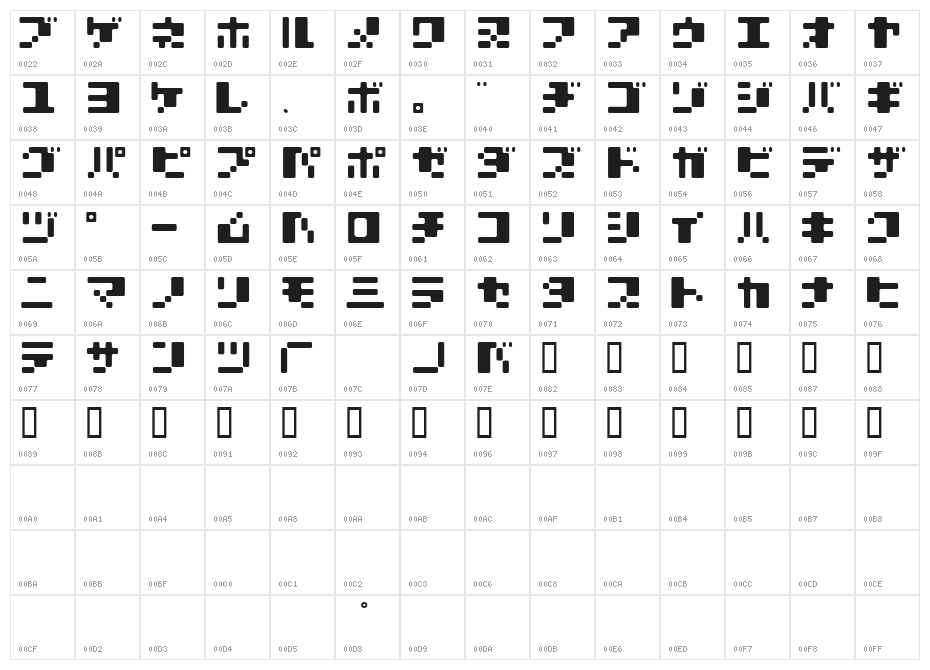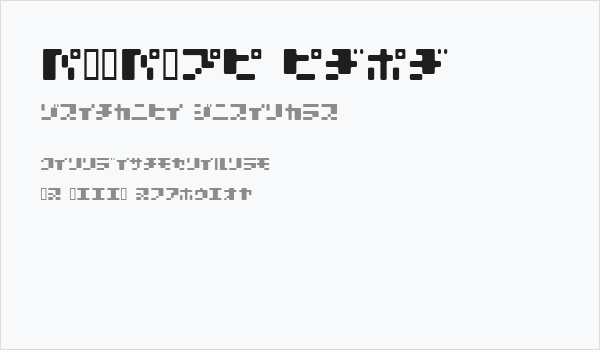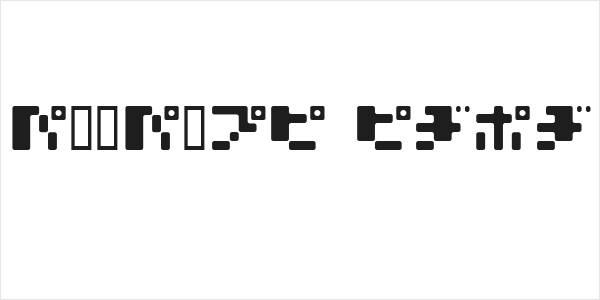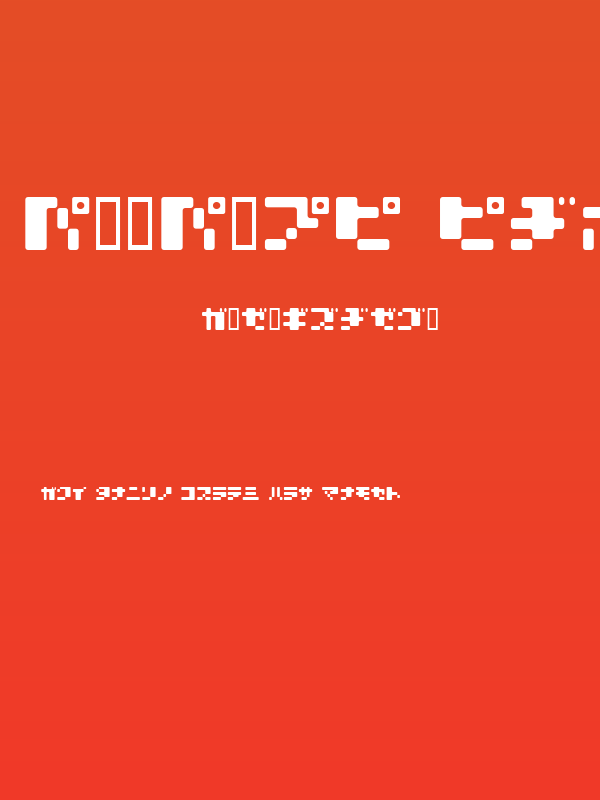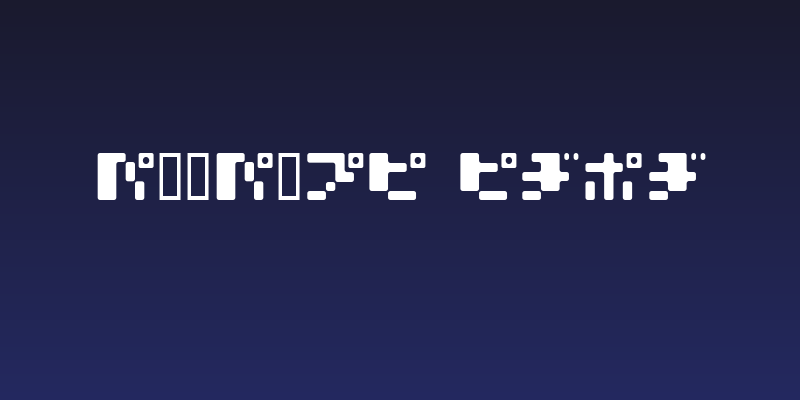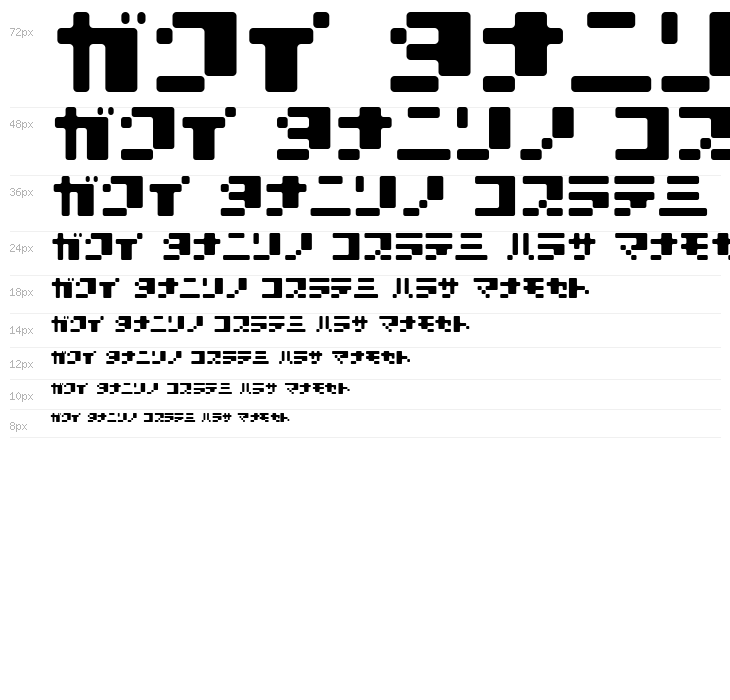
MOOMILK KANA Font
MOOMILK KANA Description
This font features a bold and playful design with a distinctly modern and decorative style. The characters are composed of thick, blocky shapes with rounded edges, giving them a friendly and approachable appearance. The font's structure is geometric, with a uniform thickness throughout each character, contributing to a cohesive and balanced look. The spacing between characters is tight, which enhances the compact and solid feel of the text. This font is particularly eye-catching and would be well-suited for creative and informal applications where a sense of fun and uniqueness is desired.
| Proposed Projects | Ideal for children's books, playful branding, posters, and creative digital content. |